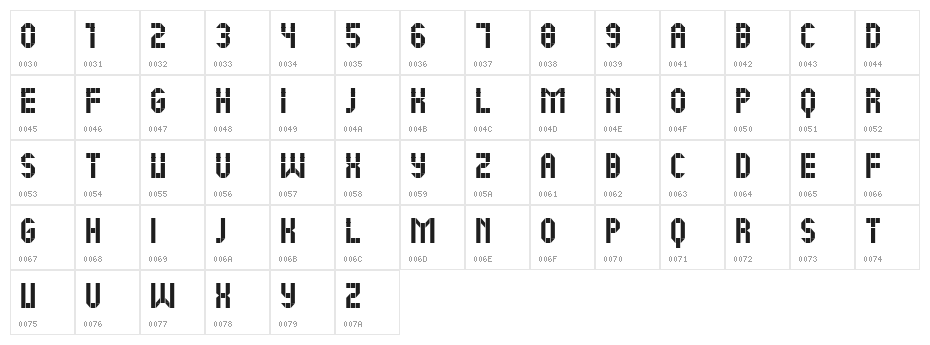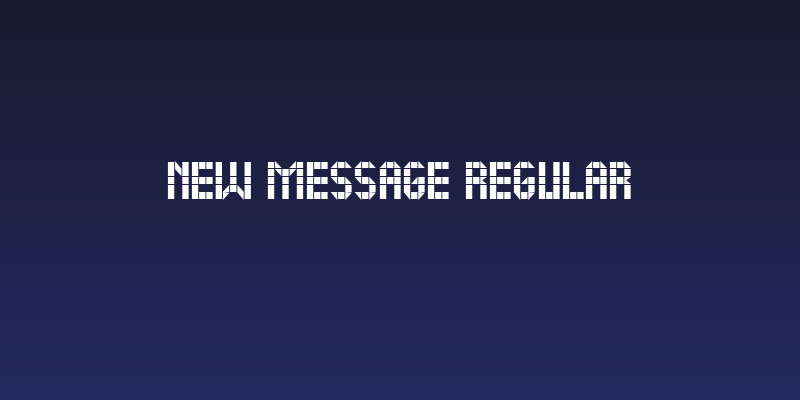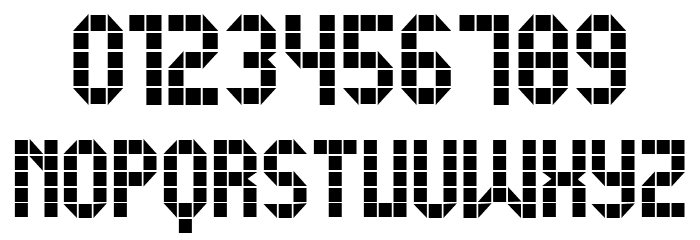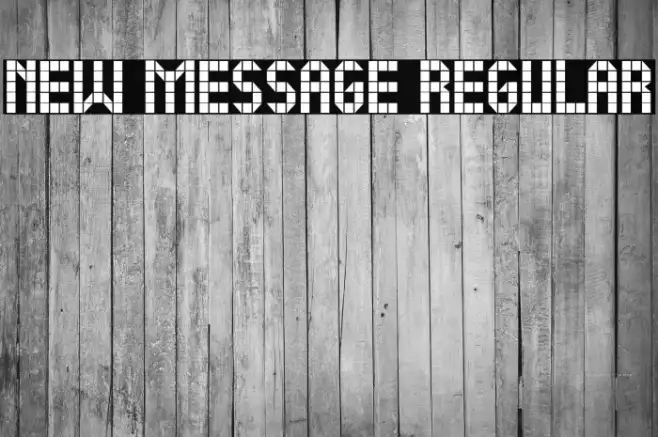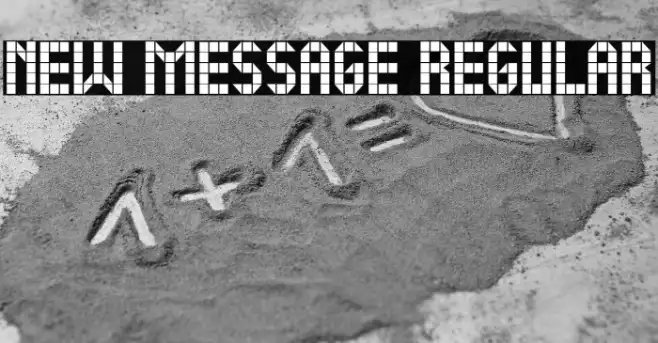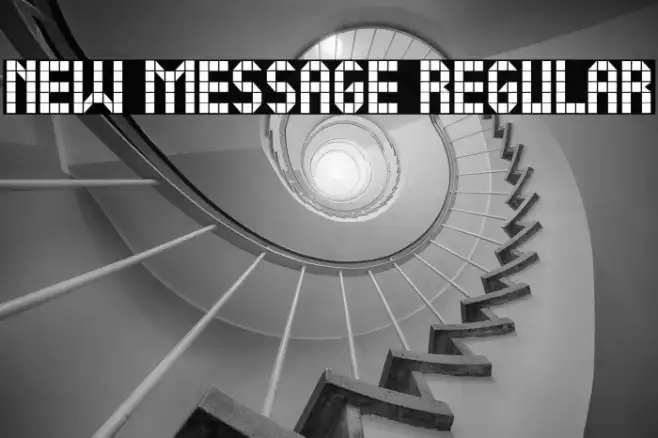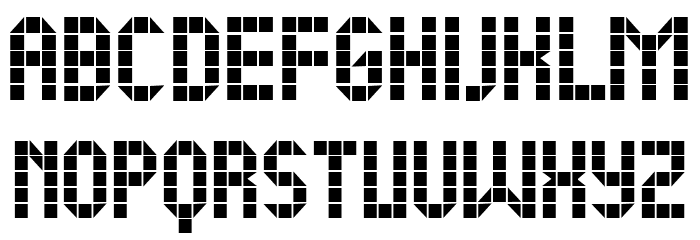
New Message Regular Font
New Message Regular Description
This font features a bold, geometric design composed of square and triangular shapes, creating a mosaic-like appearance. Each character is constructed from a grid of black squares, giving it a pixelated, digital feel. The uniformity in shape and size across all characters provides a cohesive and structured look. The font's unique style is reminiscent of digital displays or retro video game graphics, making it stand out with its modern and tech-inspired aesthetic. The uppercase letters, numbers, and special characters maintain consistent spacing and alignment, enhancing readability despite the intricate design.
| Use Case | Logos, Headlines, Digital displays |
| Proposed Projects | Ideal for tech-themed projects, digital art, video game graphics, or any design requiring a modern, futuristic touch. |